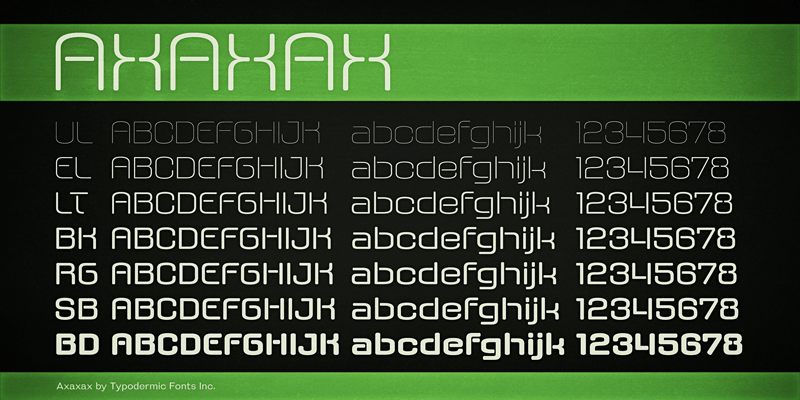
Preview and download Axaxax Font. Created by Typodermic Fonts in Techno Sci-fi styles with 100% Free license.
Like an other-worldly neon, Axaxax’s laser curves convey an urban, futuristic or alien motif . . . or all three. This font includes a license that allows free commercial use: sometimes referred to as a desktop license. This allows you to install the font on a computer and use it to create posters, web graphics, game graphics, t-shirts, videos, signs, logos and more. Read the license agreement for details. If you'd like to embed this font in an app, ebook, on the web or anything that's not covered by the desktop license agreement, visit the link below. You'll find distributors who offer different types of licenses or you can contact me for help. http://typodermicfonts.com/axaxax-graphics/ This free font is part of a larger font family. Check out the rest of the family through the link above. |